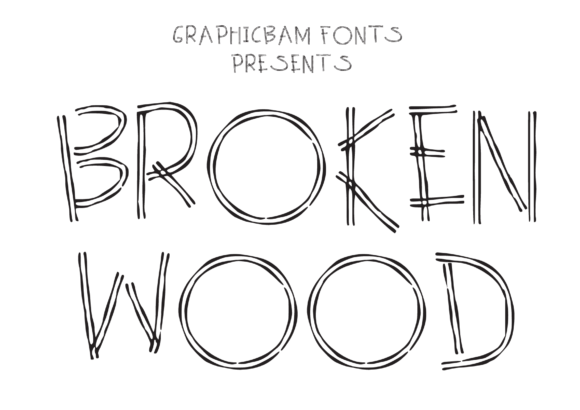
Get Ready to Embrace the Quirky Charm of Typography
Who hasn’t been stuck in a creative rut, staring blankly at a blank page or screen, searching for that elusive spark that sets the design ablaze? For me, it was a late-night trawl through a font library that led to the discovery of the Broken Wood Font – a quirky, offbeat display font that’s as much fun to read as it is to look at.
Broken Wood Font is a font that defies convention, embracing a carefree, urban aesthetic that’s perfect for adding a touch of whimsy to informal design projects. Its unique, hand-crafted feel makes it a valuable asset for designers looking to add some personality to their work. And with its easy-to-use, add-it-and-love-it approach, you can’t go wrong.
Broken Wood Font Key Features
- Font Style: A distressed, wood-grain font with a broken, imperfect look.
- Unique Characteristics: The font features a unique, hand-crafted look with visible wood grain textures, giving it a distinct, vintage feel.
Designer Review: Broken Wood Font
As a designer, I was excited to dive into the Broken Wood Font, a distressed, hand-drawn font that promises to add a touch of raw emotion to any design project. Here’s my honest take on this font.
- ✨ The Broken Wood Font is incredibly versatile, suitable for a wide range of design projects, from branding and advertising to editorial and digital media.
- ✨ The font’s distressed, hand-drawn feel gives it a unique and emotional quality that can add depth and character to any design.
- ✨ The font is well-suited for use in headers, titles, and short blocks of text, where its raw, emotive quality can shine.
- ⚠️ While the font is versatile, it may not be the best choice for body text, where readability is crucial.
- ⚠️ The font’s distressed quality can be overwhelming if used extensively, so it’s essential to use it judiciously and balance it with cleaner, more readable fonts.
- ⚠️ The font may not be suitable for projects that require a more polished, professional look.
The Broken Wood Font is a unique and emotive font that can add a touch of raw emotion to any design project. While it may not be suitable for every project, it’s a great choice for designers looking to add some personality and character to their work.
Tip: Use Broken Wood Font for titles and headings to add a distressed touch to your design.
Tip: Experiment with layer blending modes to enhance the distressed look of Broken Wood Font.
Tip: Use Broken Wood Font for headings and titles to add a vintage touch to your presentation or document.
Broken Wood Font is ideal for:
- Distressed or vintage-themed designs.
- Titles, headings, and logos.
- Music and art projects.
Remember to experiment with different font sizes, colors, and styles to get the most out of Broken Wood Font.
Alternatives to Broken Wood Font
Great Vibes is a modern, elegant script font that works well for headings and titles. It has a more refined and sophisticated feel compared to Broken Wood Font, which is more distressed and rustic. Great Vibes is ideal for luxury brands, high-end fashion, and other industries that require a touch of sophistication.
Playfair Display is an elegant, luxurious serif font that is perfect for headings and titles. While it’s more formal than Broken Wood Font, it shares a similar sense of opulence and sophistication. Playfair Display is ideal for high-end brands, fashion, and luxury goods.
Carolyna Pro is a modern script font that has a more polished and refined feel compared to Broken Wood Font. It’s ideal for headings, titles, and body text, and works well for a wide range of industries, from fashion to technology. Carolyna Pro is a good choice for brands that want a sophisticated and elegant look without the rustic feel of Broken Wood Font.